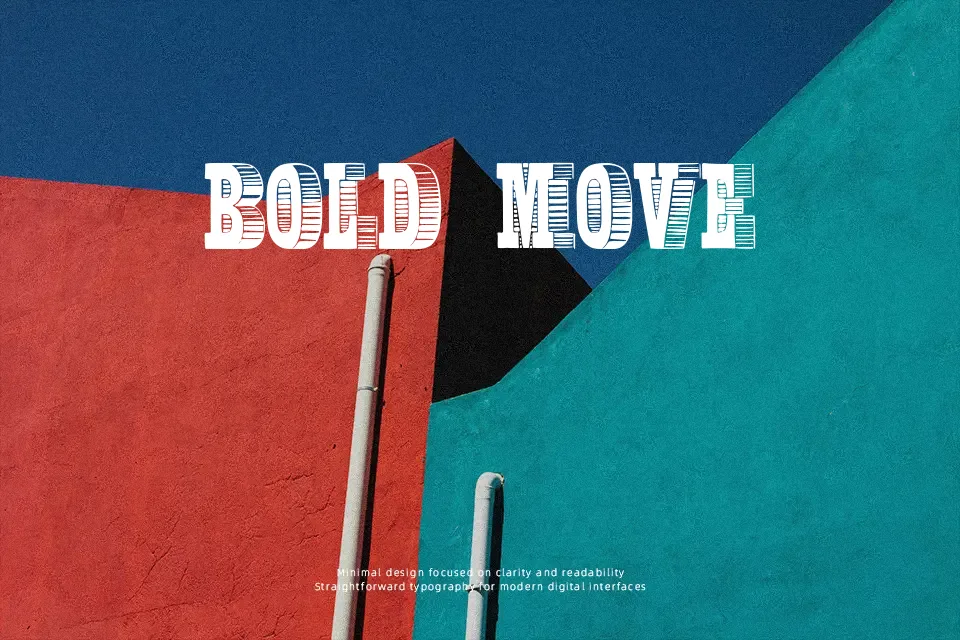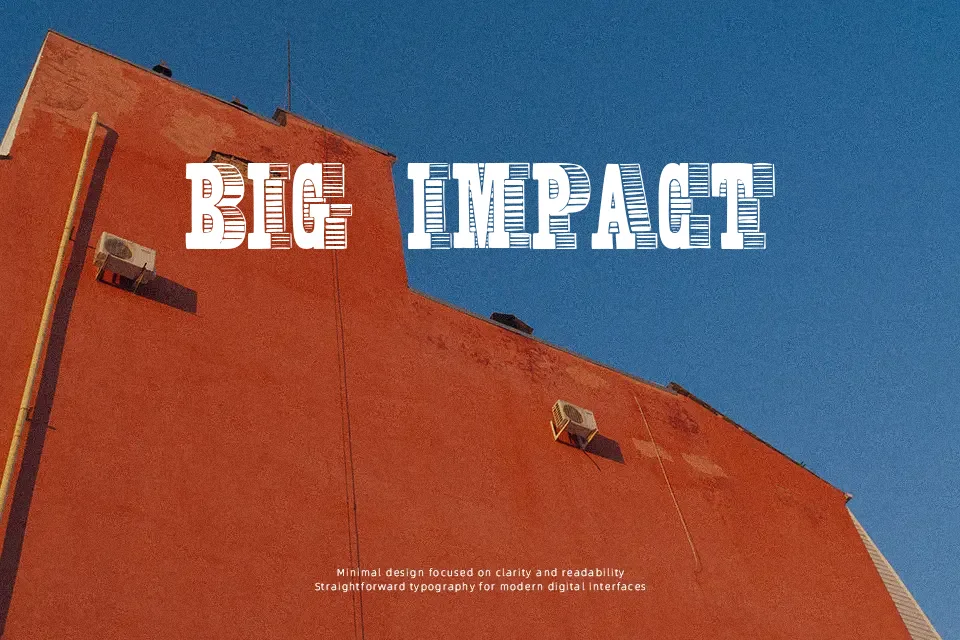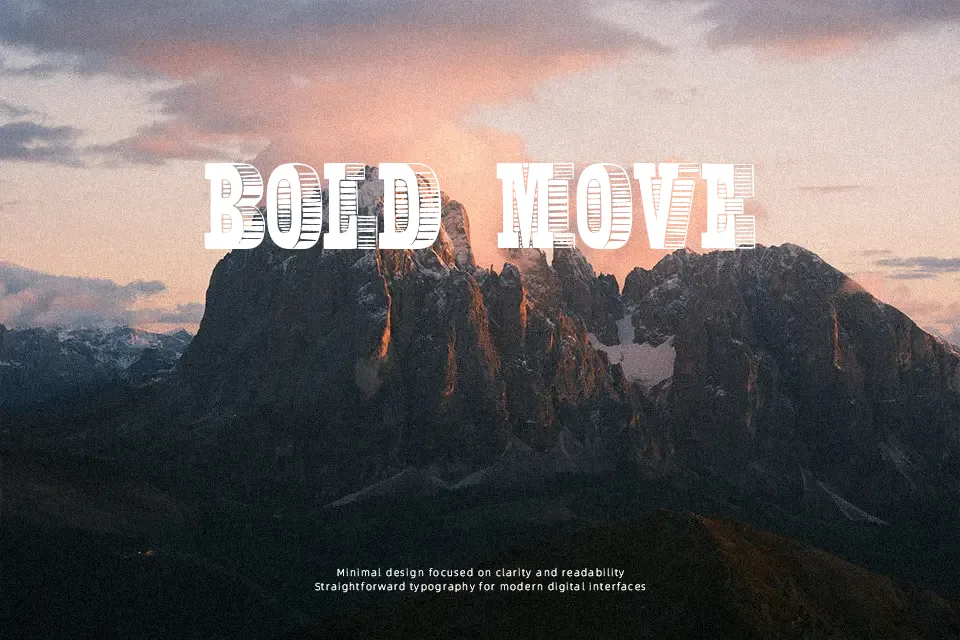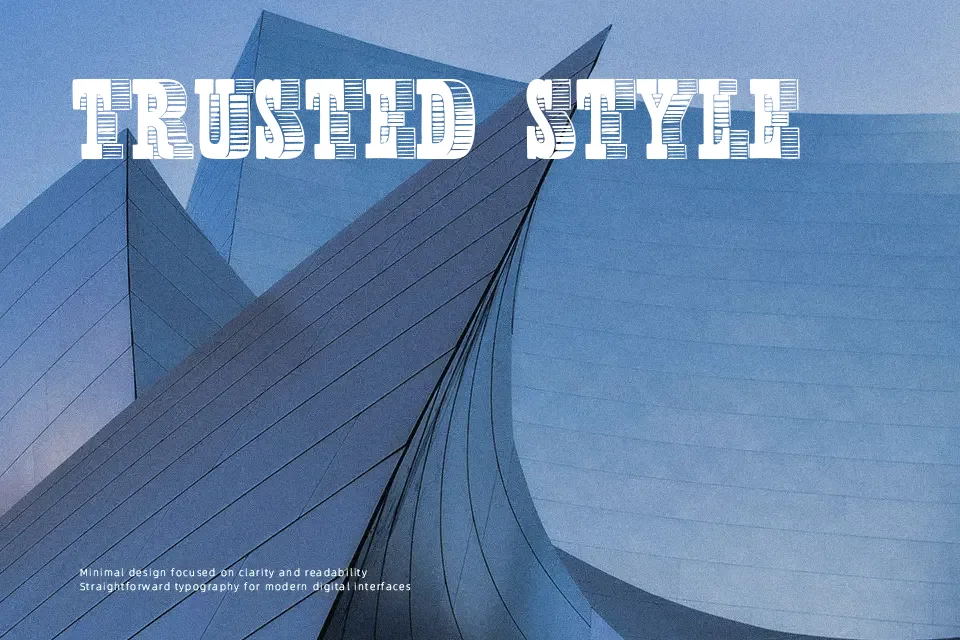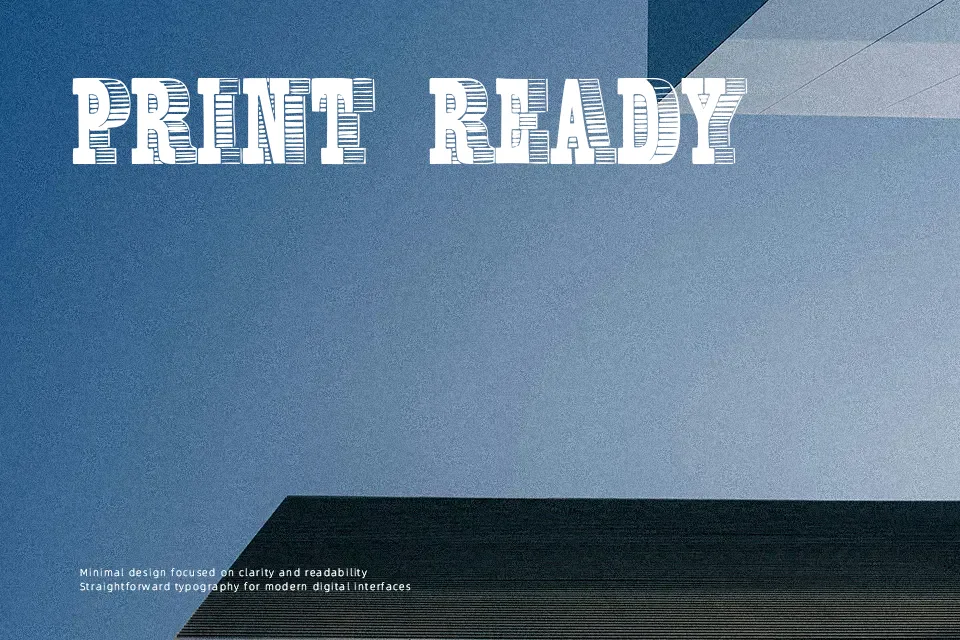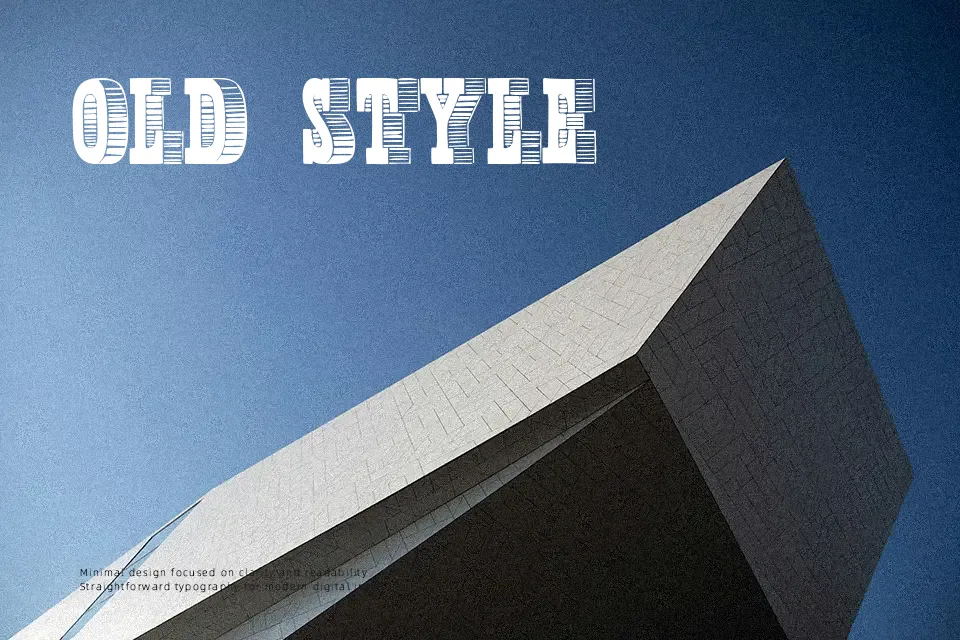
Shady Characters Font
Shady Characters Font pairs solid, structured letterforms with deep angled drop shadows to establish an unmistakable three-dimensional appearance. The typeface features uniform stroke weight, wide proportions, and consistent baseline alignment across its uppercase characters. Moderately tight letter spacing preserves cohesive silhouettes without blending adjacent glyphs. While the bold contours ensure high legibility in prominent banners, retro merchandise labels, and billboard titling, the heavy dimensional shadows severely compromise reading comfort when rendered below medium display sizes. Dense editorial layouts and continuous body copy easily become cluttered, making this design best suited for isolated, impactful headers.
– retro merchandise packaging
– music festival posters
– arcade title screens
– billboard headlines
– continuous body paragraphs
– mobile app interface labels
– small legal disclaimers
– dense magazine columns